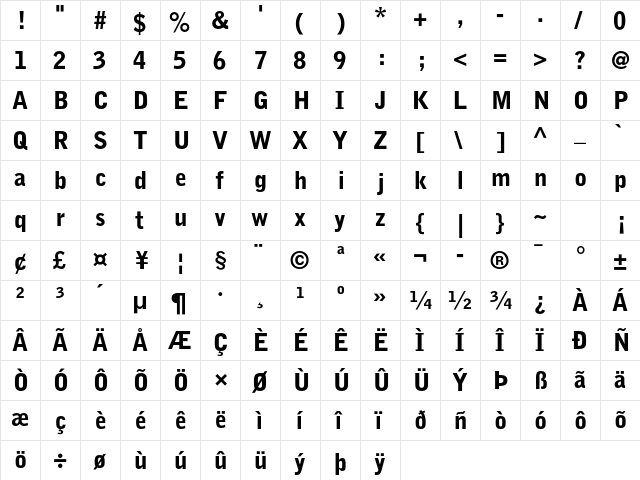
Bell Gothic Std Black
| Designer | Chauncey H. Griffith |
Design Context for Bell Gothic Std Typeface
Bell Gothic Std takes a clean, functional approach — its unadorned letterforms prioritise legibility and work reliably across screen and print environments.
Font Pairing: Works well alongside a characterful serif or display font that can carry the expressive load while Bell Gothic Std handles the functional copy.
Pro Tip: Pair Bell Gothic Std with a display or serif font for headlines — its neutral character makes it an excellent supporting player in complex typographic systems.